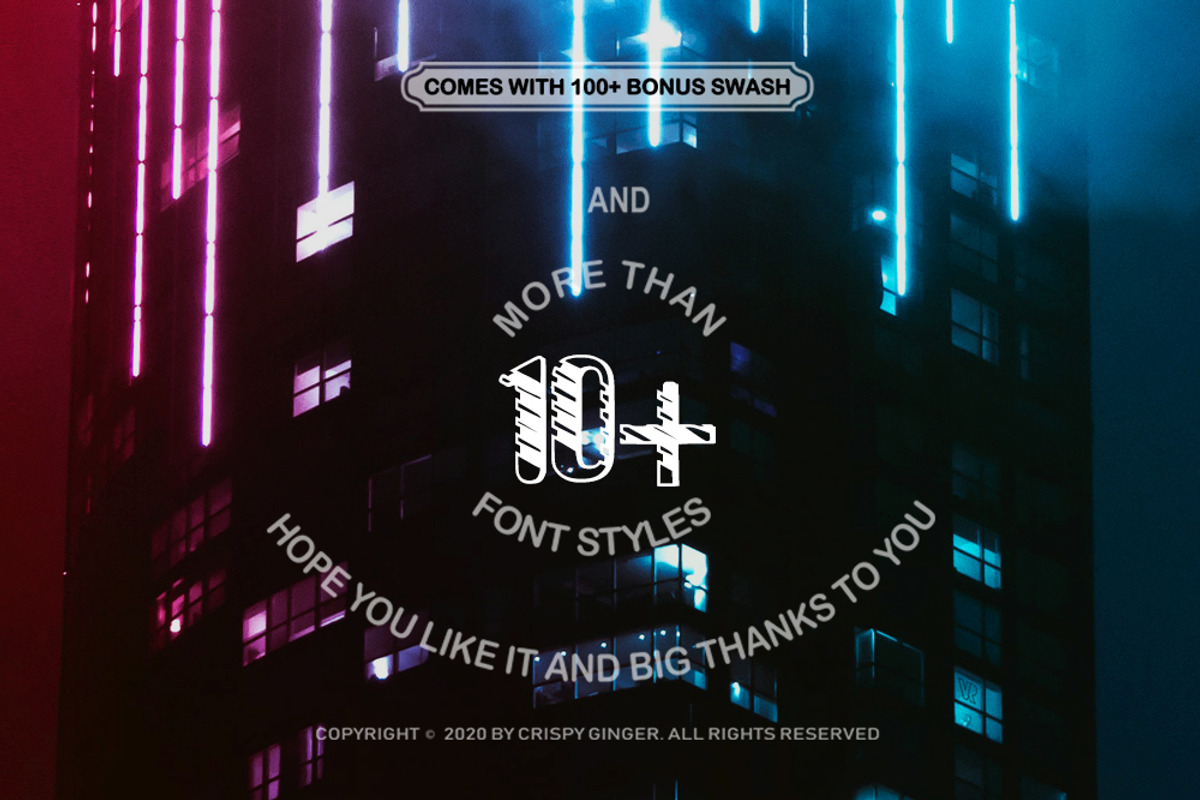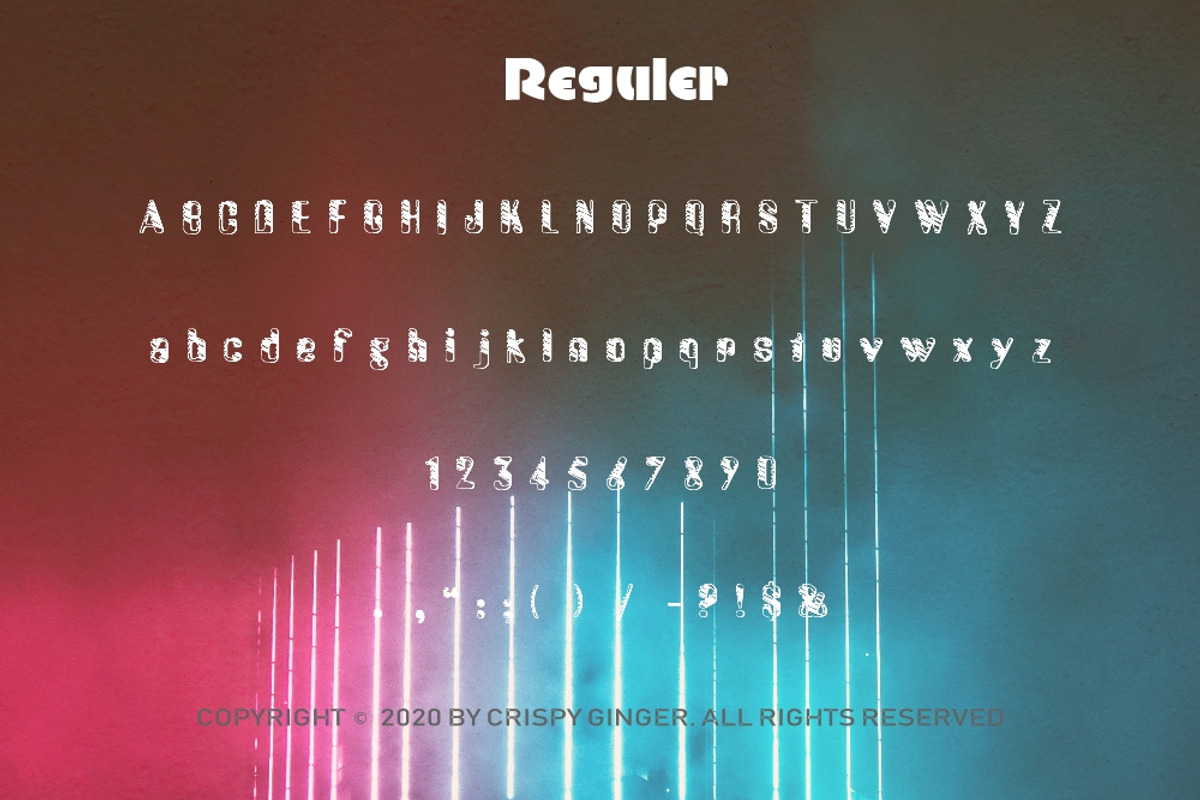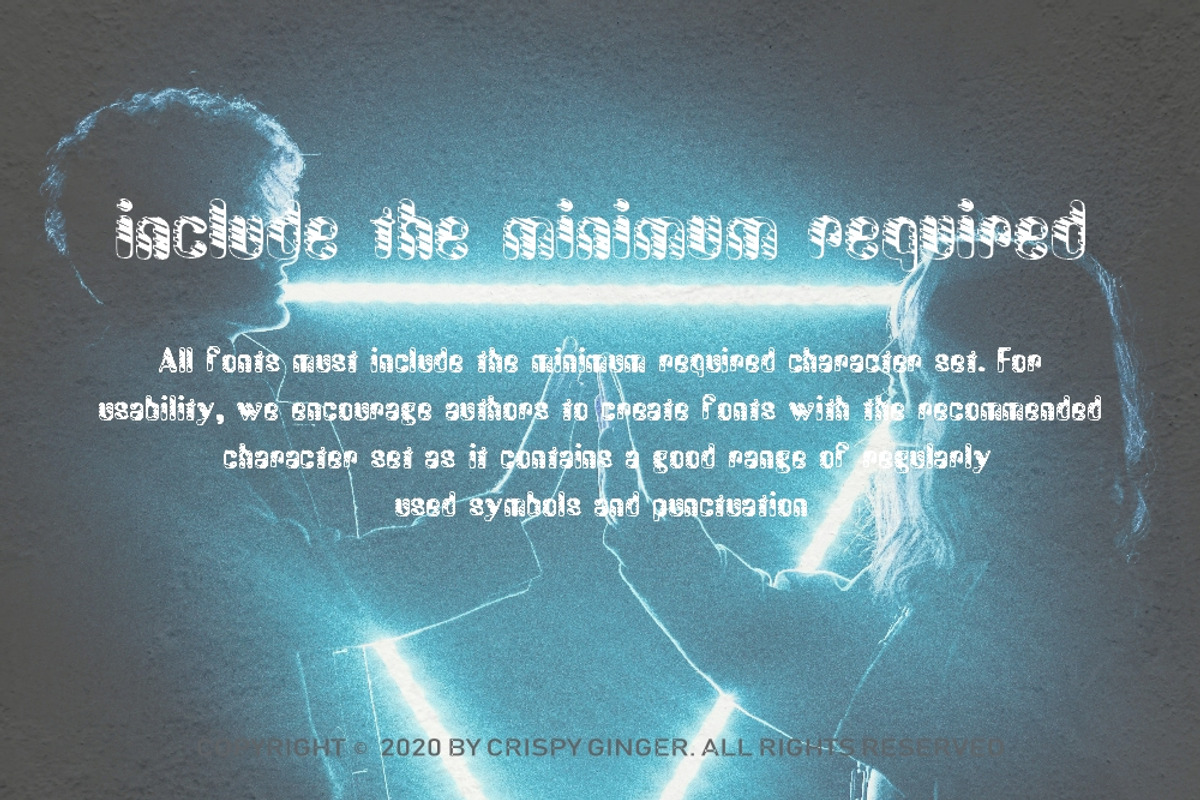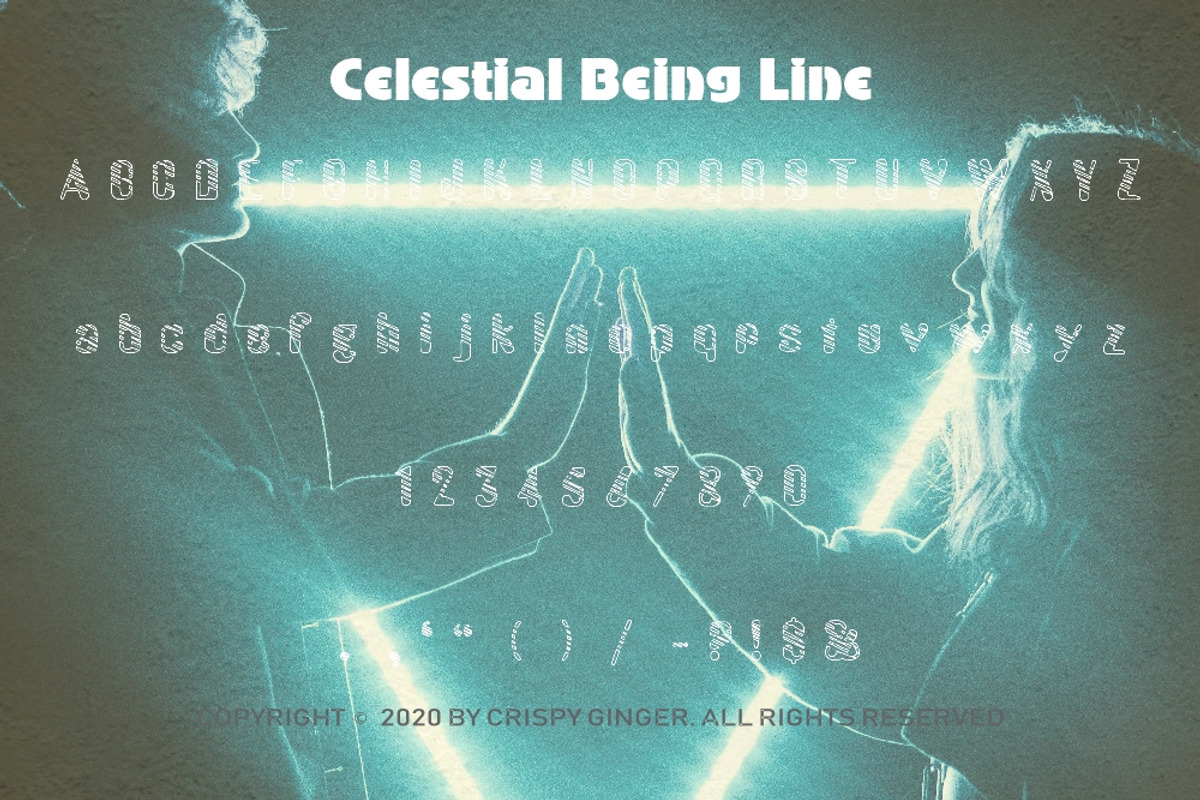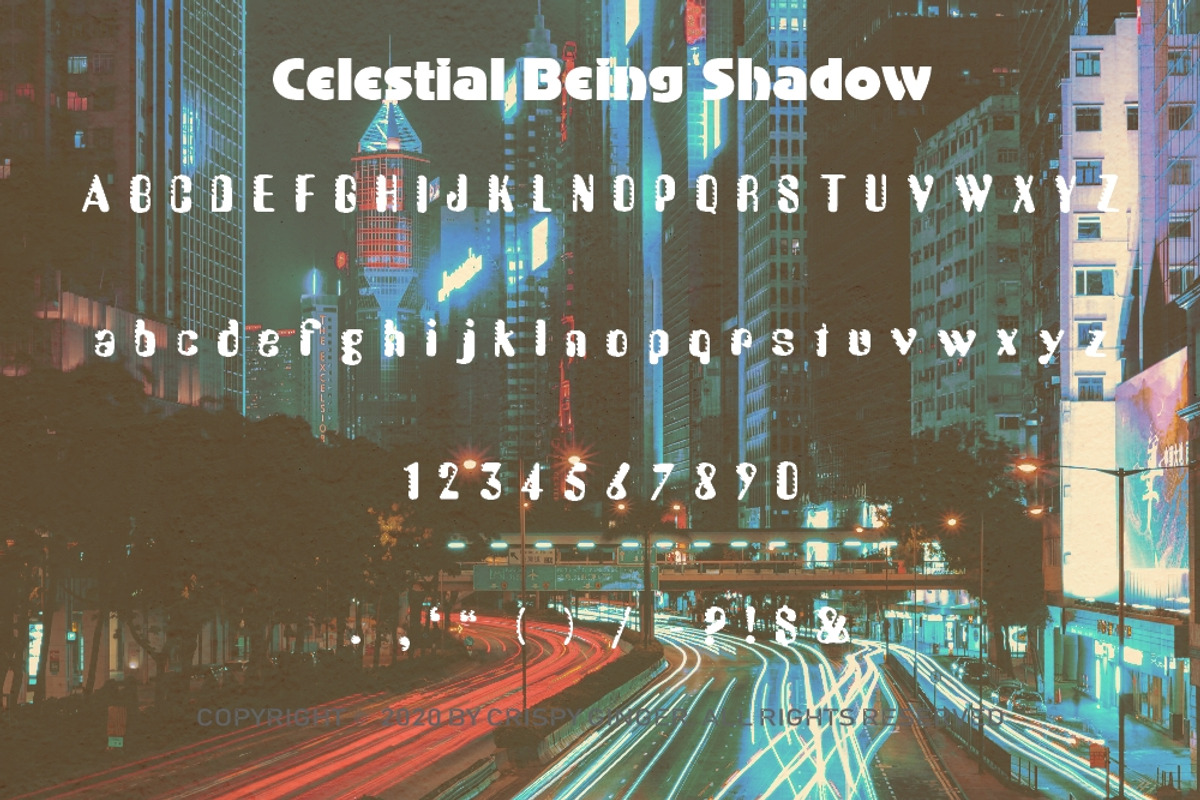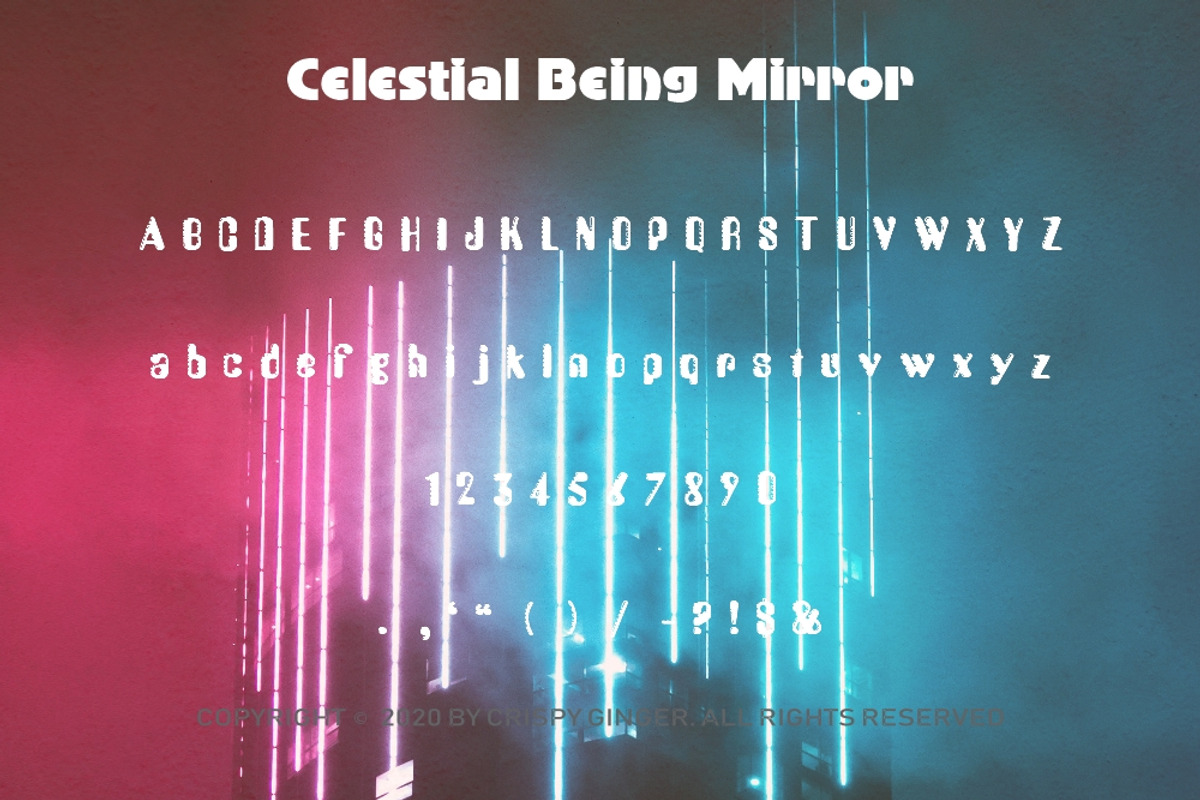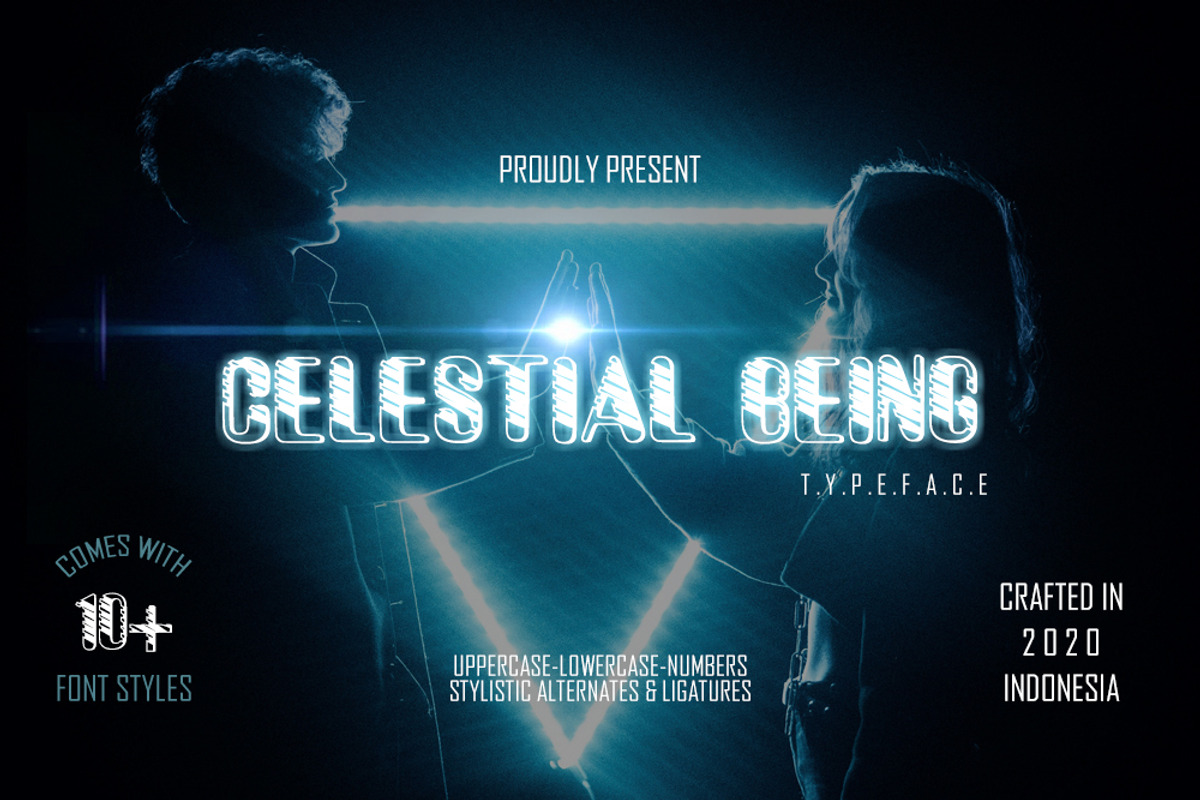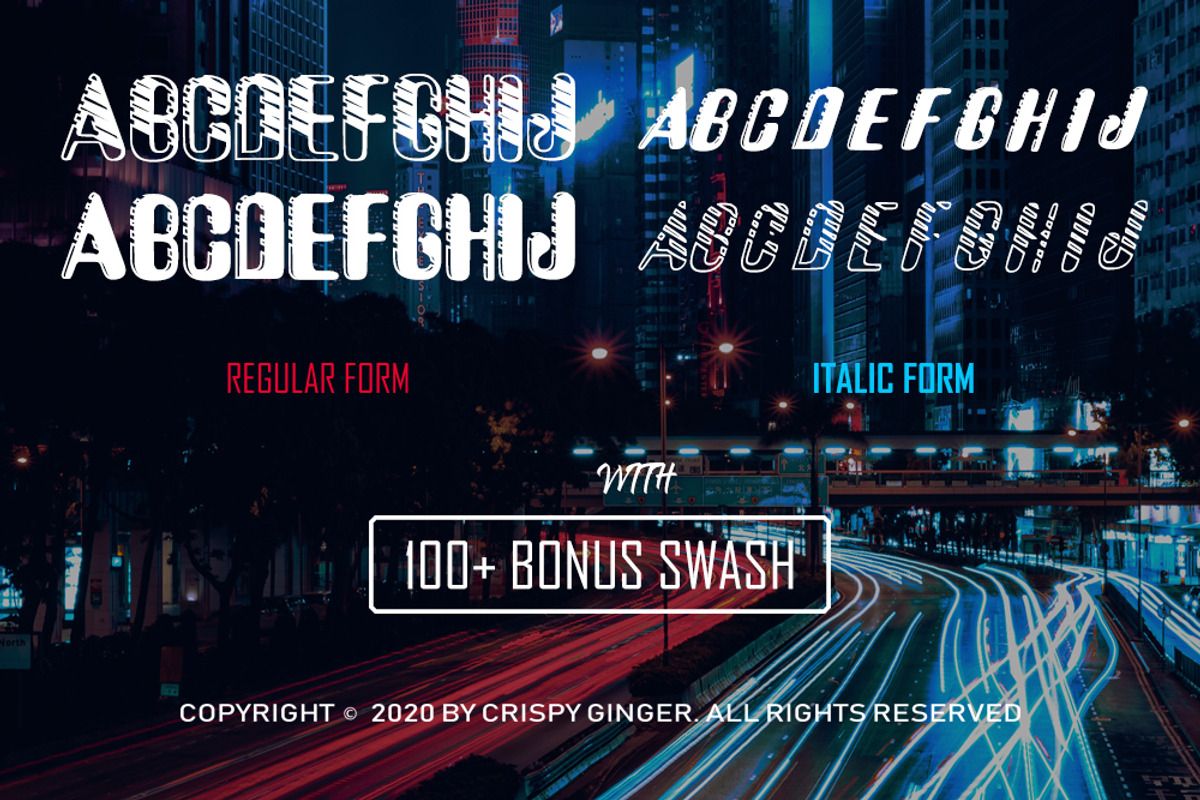
Celestial Being - 13 Font styles
Celestial Being - 13 Font styles and 150 Swashes.
Celestial Being represents the best of organic curves with sharp modern edges. Sophisticated and edgy, it's everything you want out of a display font. It looks amazing at large sizes and, also, small sizes.
Celestial Being shadow
Celestial Being line italic
Celestial Being italic
Celestial Being italic shadow
Celestial Being front
Celestial Being Middle
Celestial Being Grunge
Celestial Being italic Grunge
Celestial Being Mirror
Celestial Being Mirror italic
Celestial Being Swashes
the total number is 13 font styles and 150+ swashes.